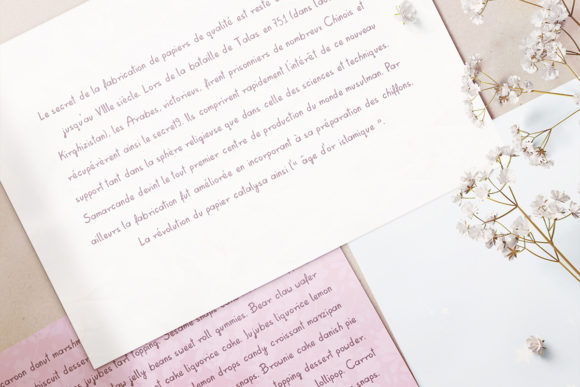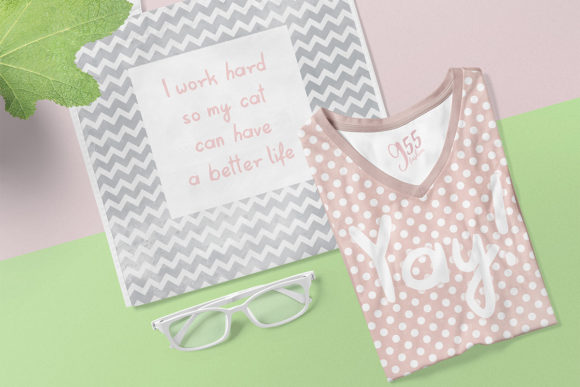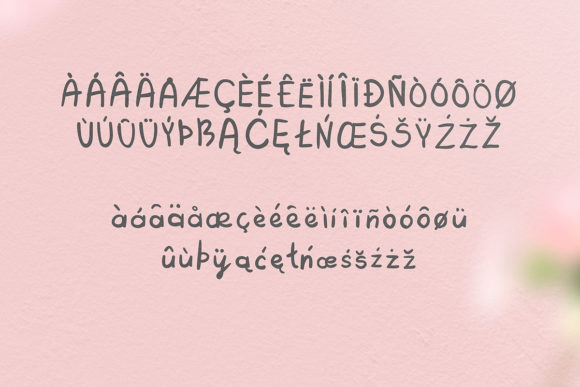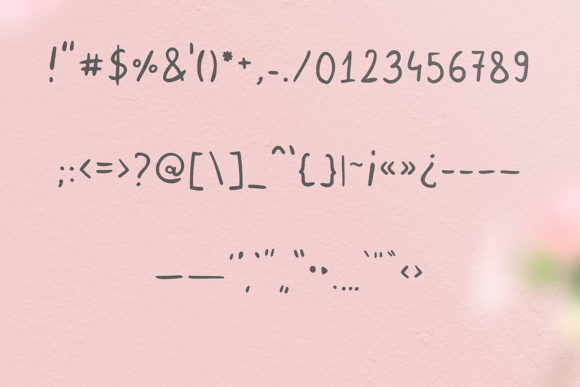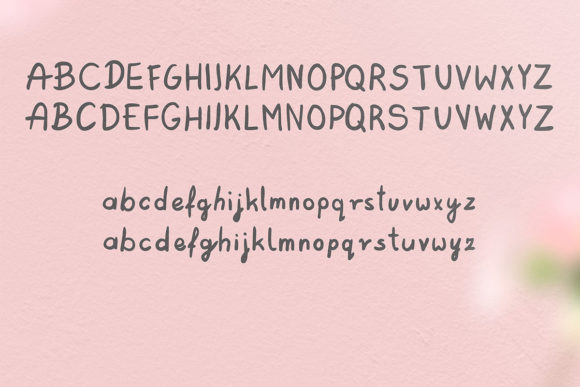
Pralinka Font
About Pralinka Font
Pralinka is a cute and casual handwritten font with an incredibly friendly feel. Use this gorgeous and unique font to bring any DIY project to life!